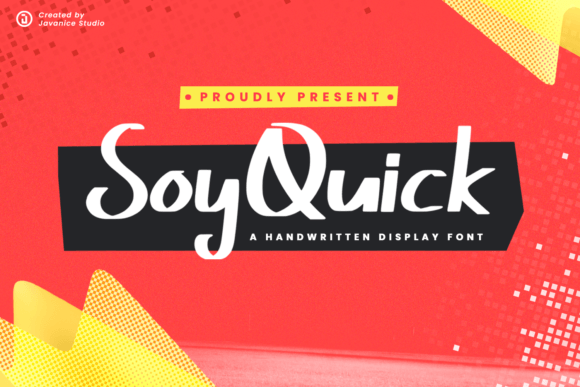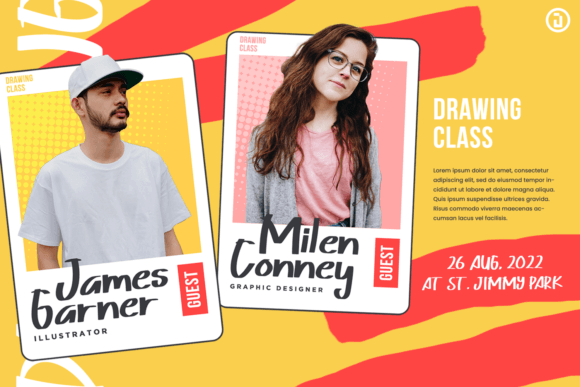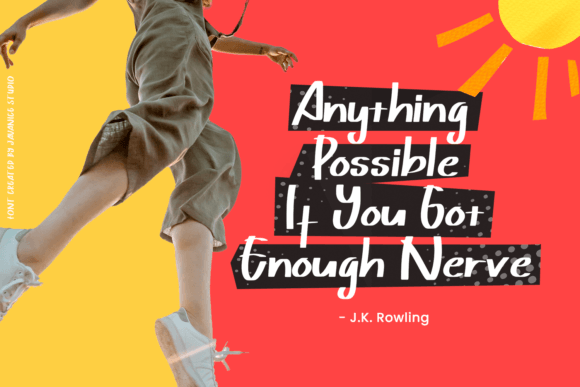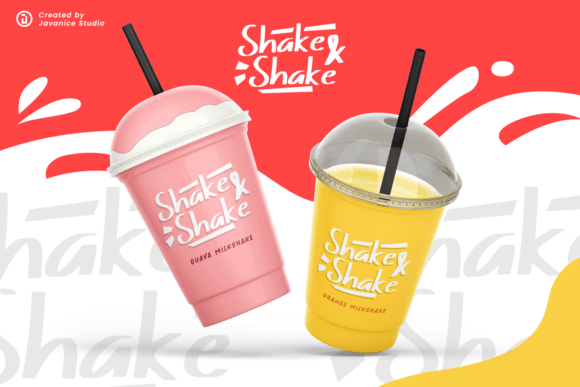
About Soyquick Font
**Soyquick** is a clean, relaxed, and friendly handwritten font that offers versatility and simplicity in its style. This font is well-suited for a wide variety of designs, making it a go-to choice for different occasions. Its neat and straightforward appearance adds a touch of ease and approachability to your projects.
The clean and relaxed style of **Soyquick** makes it suitable for various design applications. Here’s how this font can be a great fit for your projects:
1. **Versatile Designs:** Whether you’re working on branding, invitations, social media posts, or other graphic design projects, **Soyquick** can adapt to different styles and themes. Its clean and friendly look ensures readability and visual appeal across various applications.
2. **Everyday Occasions:** The relaxed and friendly nature of the font makes it suitable for everyday occasions. It can be used in personal projects, notes, and casual designs where a straightforward and approachable font is desired.
3. **Clean and Simple:** The neat and simple style of **Soyquick** adds a touch of clarity to your designs. It is a great choice when you want a font that communicates a message in a straightforward and uncluttered manner.
4. **Professional Look:** Despite its handwritten style, **Soyquick** maintains a level of professionalism. It can be used in business materials, presentations, and documents where a clean and friendly font is needed.
5. **Relaxed Vibes:** The relaxed vibe of **Soyquick** makes it suitable for designs that aim to convey a laid-back and easygoing atmosphere. This could be ideal for projects related to leisure, lifestyle, or casual events.
By incorporating **Soyquick** into your font collection, you have a reliable and versatile tool that can enhance the visual appeal of your designs across a range of contexts. Whether you’re creating for personal or professional purposes, let **Soyquick** be the font that adds a touch of friendliness and simplicity to your projects.